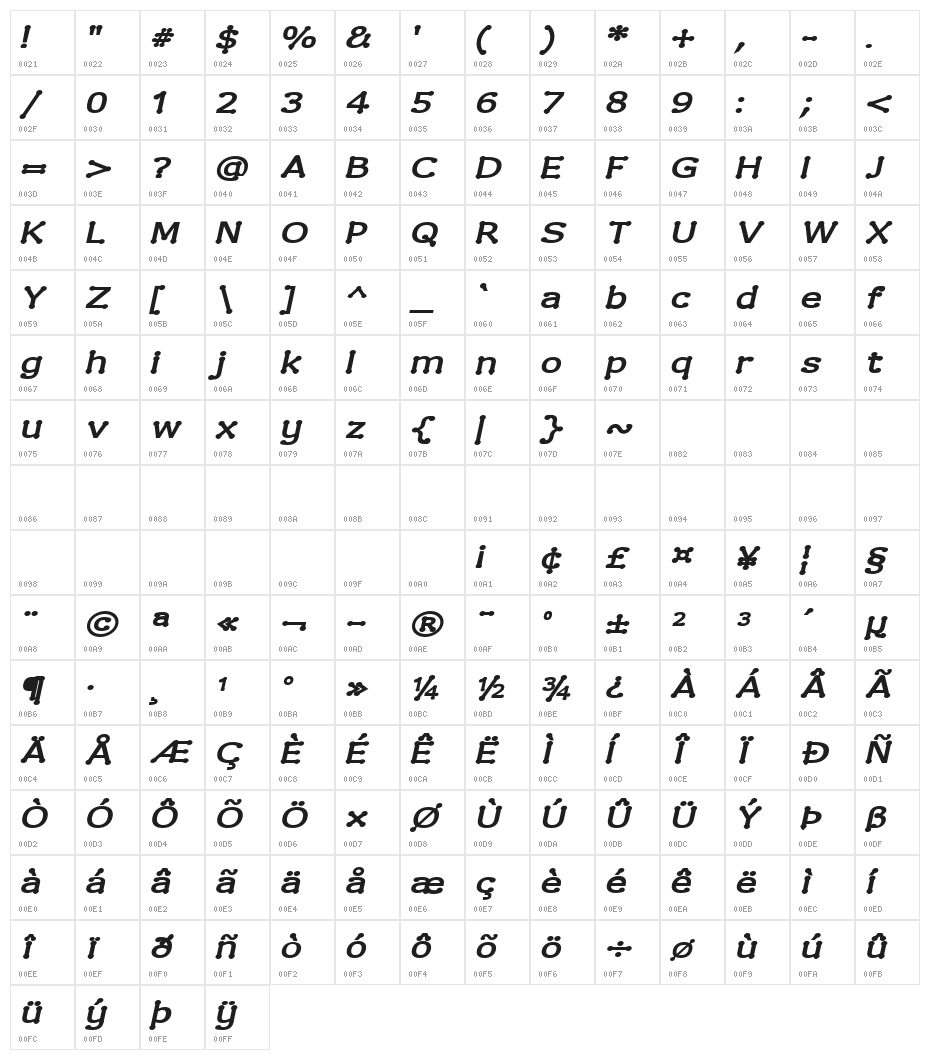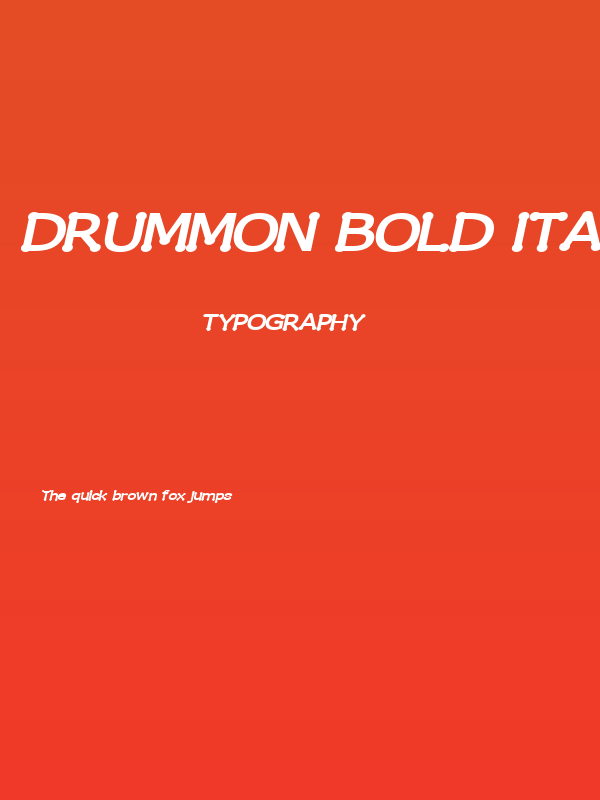
Drummon Bold Italic Font
Drummon Bold Italic Description
This font features a bold and italicized style with a distinctive, flowing appearance. The characters are well-rounded and slightly condensed, giving them a dynamic and energetic look. The uppercase letters are robust and commanding, while the lowercase letters maintain a consistent style with smooth curves and a slight slant. The numerals are clear and bold, ensuring readability. Special characters are designed with the same boldness and flair, making them stand out. The overall design is modern and eye-catching, suitable for making a strong visual impact.
| Proposed Projects | Ideal for branding, advertising, headlines, and posters where a strong, modern impact is desired. |